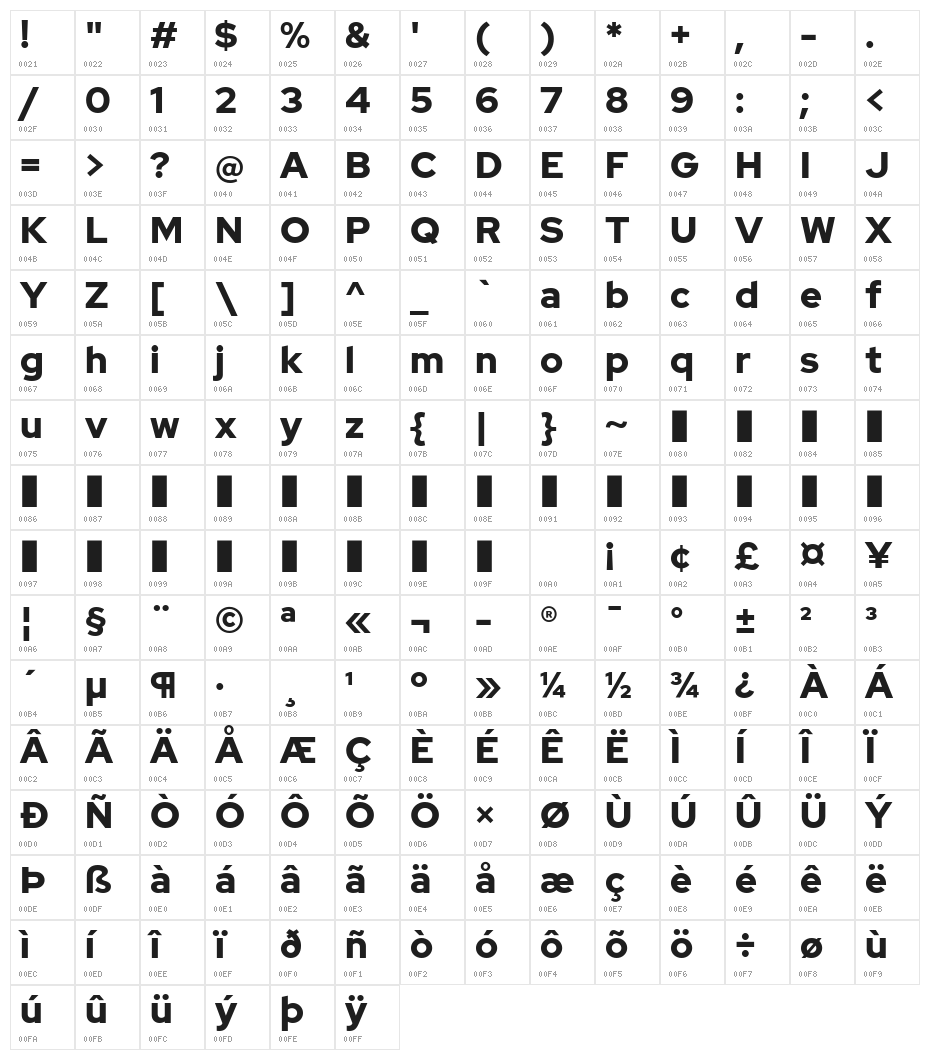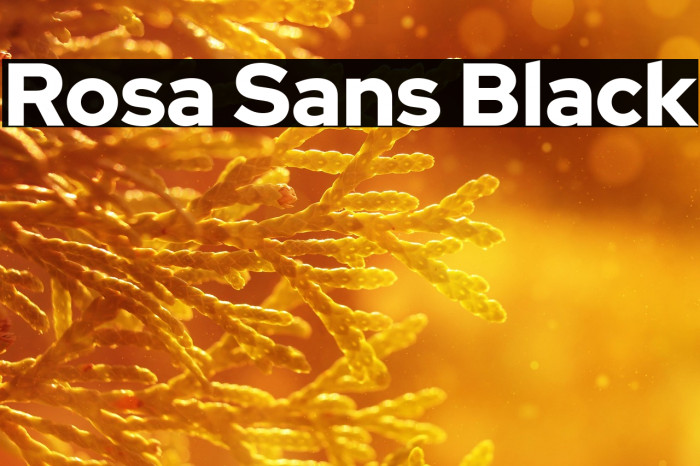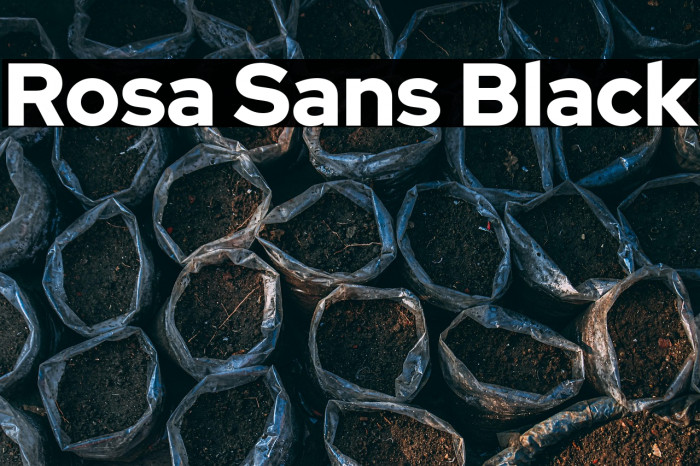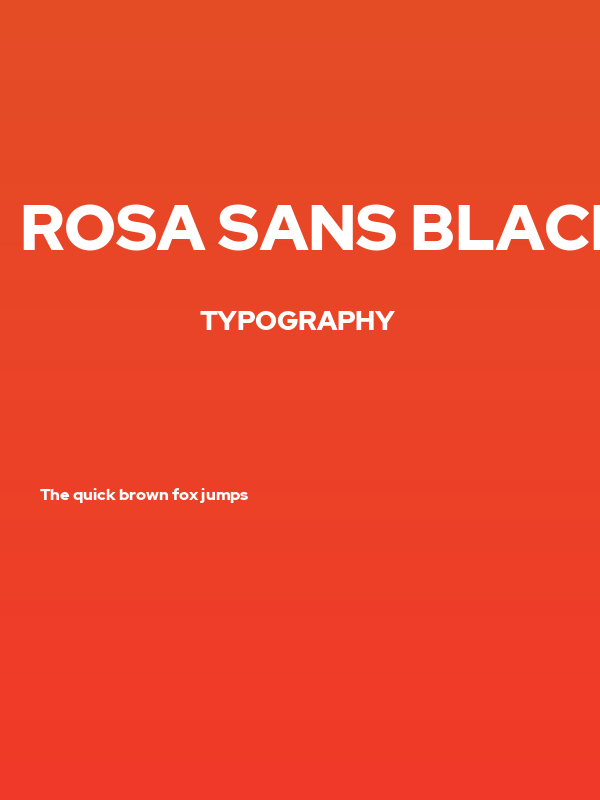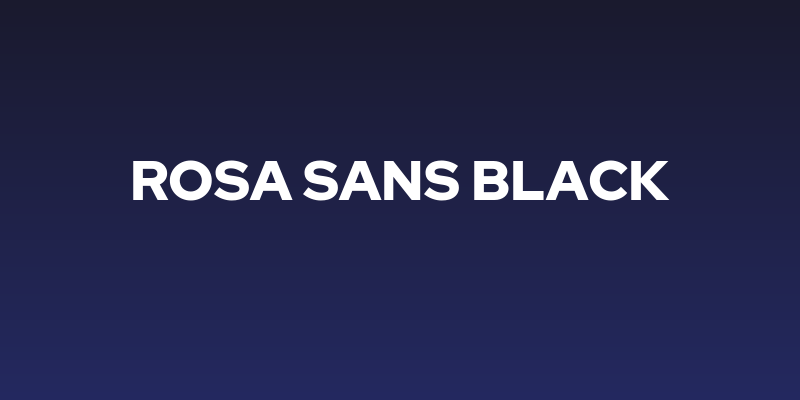
Rosa Sans Black Font
Rosa Sans Black Description
This font exhibits a bold and modern sans-serif style, characterized by its clean and straightforward lines. The letters are evenly weighted, providing a strong and confident appearance. The uppercase and lowercase characters maintain a consistent height and width, ensuring readability and balance. The numerals are clear and distinct, matching the overall robust aesthetic. Special characters are well-integrated, complementing the font's cohesive design. This font's simplicity and strength make it versatile for various applications.